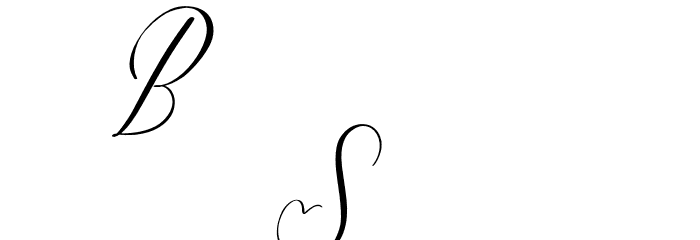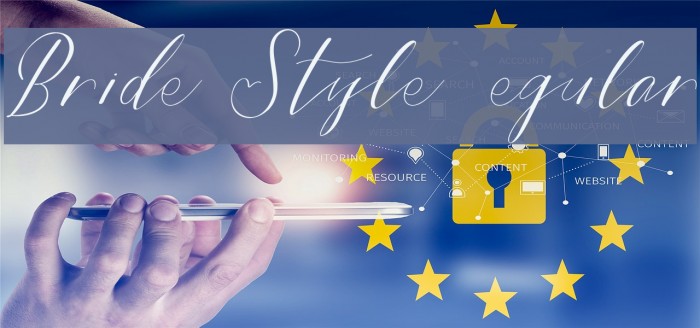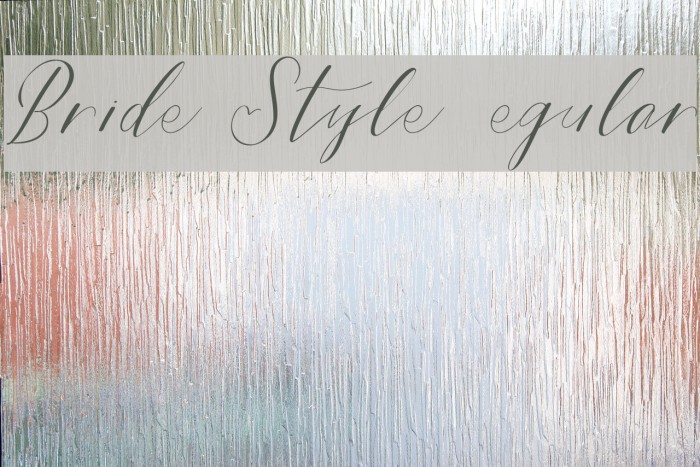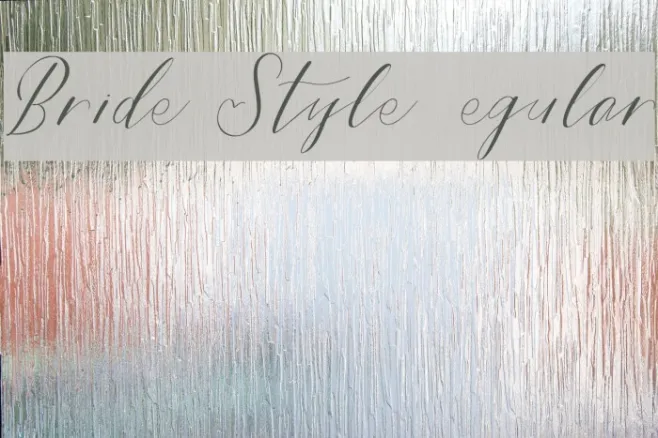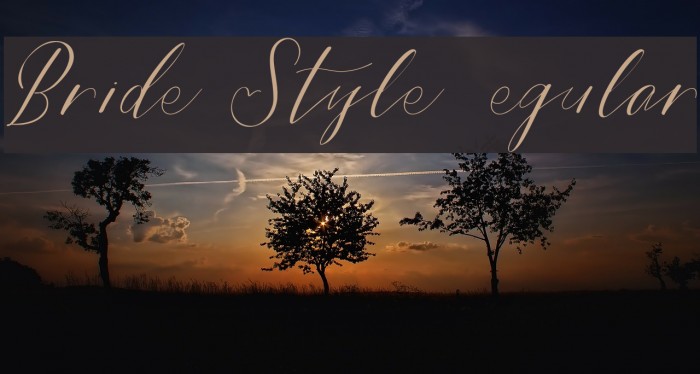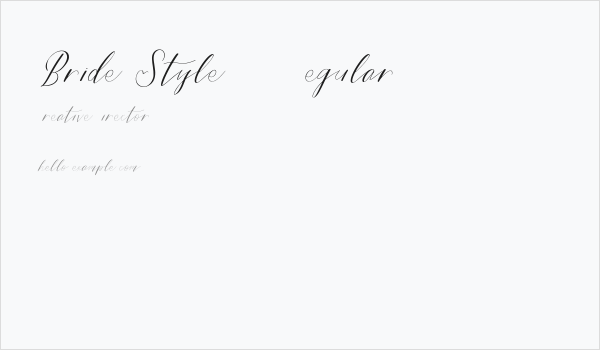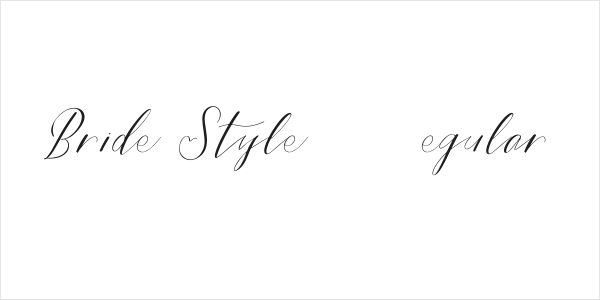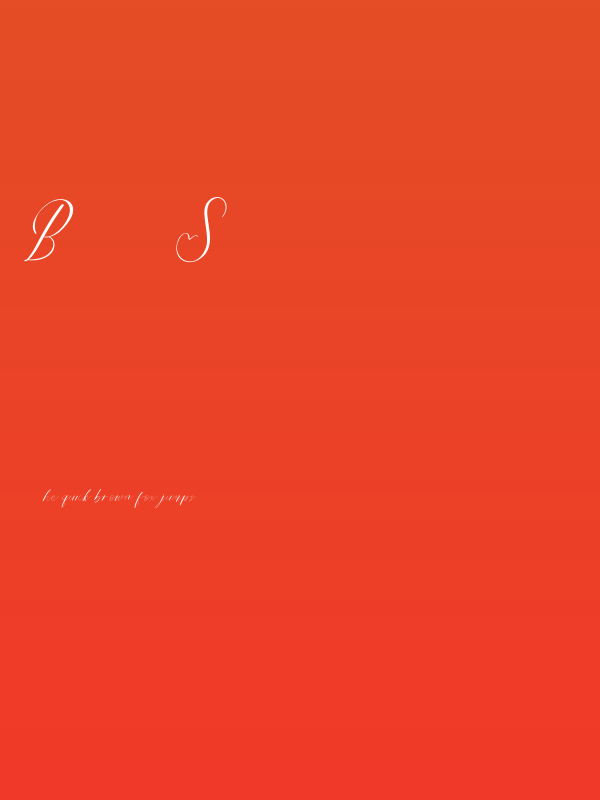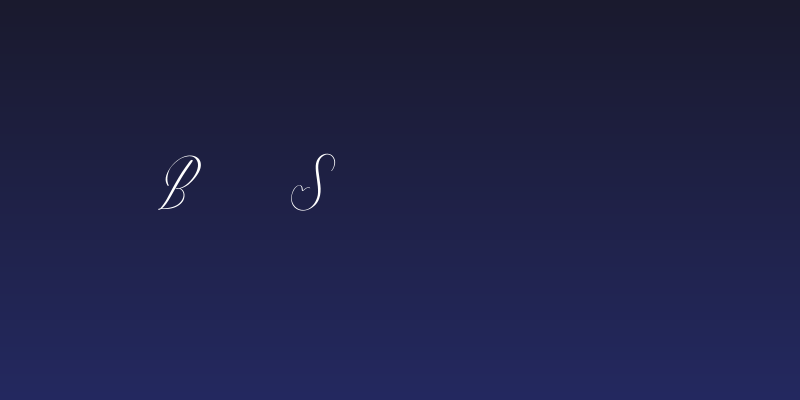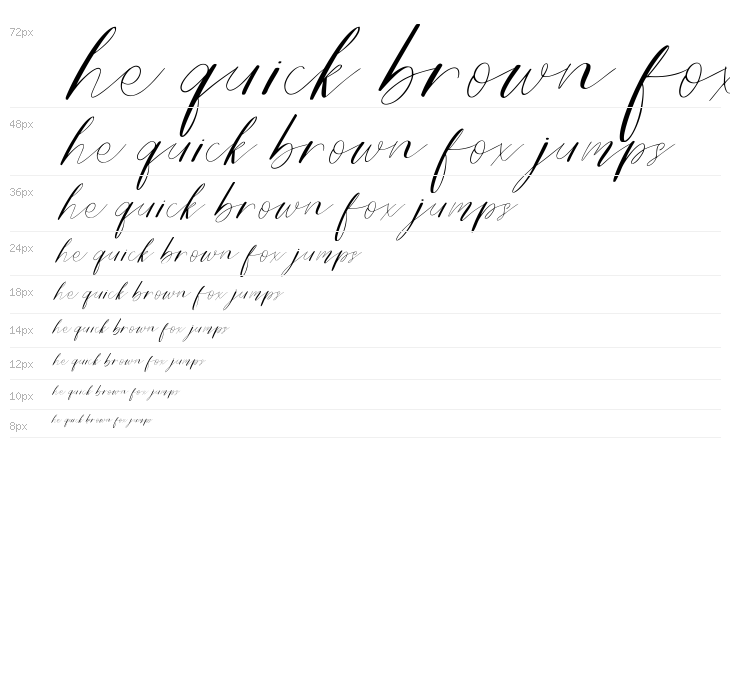
Bride Style DEMO Regular Font
Bride Style DEMO Regular Description
This elegant script font features flowing, cursive letterforms with a refined and sophisticated appearance. The strokes are smooth and fluid, giving it a graceful and romantic feel. The uppercase letters are larger and more ornate, while the lowercase letters maintain a consistent slant and delicate curves. The font's overall design is reminiscent of traditional calligraphy, making it ideal for formal and decorative applications. Its thin lines and high contrast between thick and thin strokes add to its luxurious aesthetic, making it perfect for wedding invitations, elegant branding, and high-end product packaging.
| Overall Style | Elegant, Romantic |
| Use Case | Headlines, Invitations, Branding |
| Proposed Projects | Ideal for wedding invitations, elegant branding, high-end product packaging, and formal event materials. |